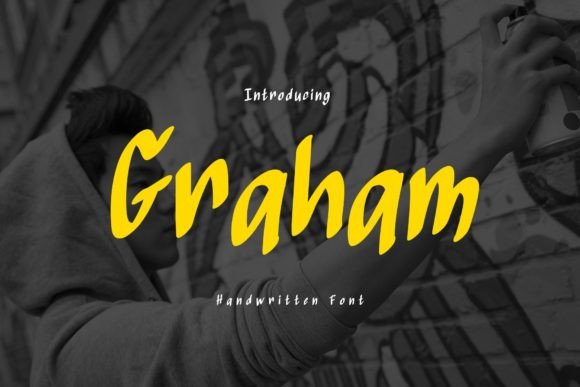
Unleash the Charm: Introducing Graham Font, the Epitome of Playfulness and Authenticity
In the realm of typography, there exists a font that captures the essence of joy and genuineness like no other—Graham Font. This enchanting script font, crafted by the talented Brown Cupple Fonts, is an ode to lightheartedness and authenticity, brimming with a personality that radiates warmth and cheerfulness.
With its playful curves and whimsical strokes, Graham Font transports you to a world of creative possibilities, inviting you to add a touch of magic to your digital creations. Let your imagination soar as you explore the myriad ways in which this remarkable font can elevate your designs, igniting a spark of delight in the hearts of your audience.
Whether you're a seasoned designer seeking to infuse your projects with a sense of whimsy or an aspiring creative yearning to make a statement, Graham Font is your ultimate companion. Its versatility knows no bounds, seamlessly adapting to a multitude of design genres, from whimsical blog posts and eye-catching logos to heartfelt branding, captivating ads, and heartfelt invitations.
Picture this: a charming blog post adorned with Graham Font's playful dance, inviting readers to embark on a journey of discovery, their eyes captivated by the font's captivating allure. Or envision a vibrant logo, emblazoned with Graham Font's unique charm, leaving an unforgettable impression on potential customers, piquing their curiosity, and compelling them to learn more.
Step into the world of Graham Font, where creativity flourishes and imagination reigns supreme. With its ability to transform the ordinary into the extraordinary, this font will elevate your designs to new heights, enchanting your audience with its playful spirit and authentic beauty.
Embrace the magic of Graham Font today, and unlock a world of boundless creative possibilities, where every project becomes a delightful adventure, and every design tells a captivating story.